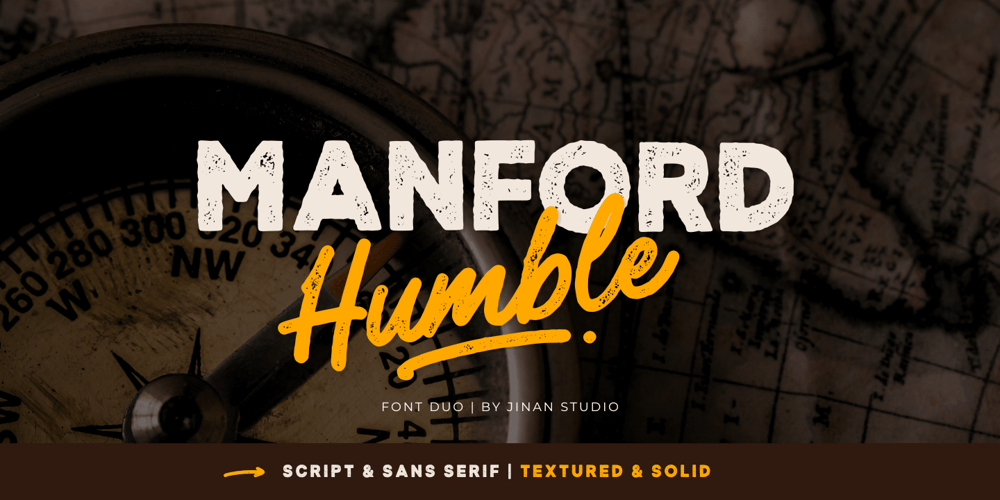
Humble Manford Font Duo Font Family was designed by Ainun Jinan and published by Jinan Studio. Humble Manford Font Duo contains 4 styles and family package options. Humble Manford Font Duo is an excellent choice for logo design, branding, packaging, business card, and adventure-themed designs. Its combination of script and sans serif styles, along with the textured and solid options, provides ample creative opportunities for designers to explore and create stunning visual identities and marketing materials.Thank you a million times for buying and using this font for your projects. Enjoy this font and happy creating!Jinan Studio